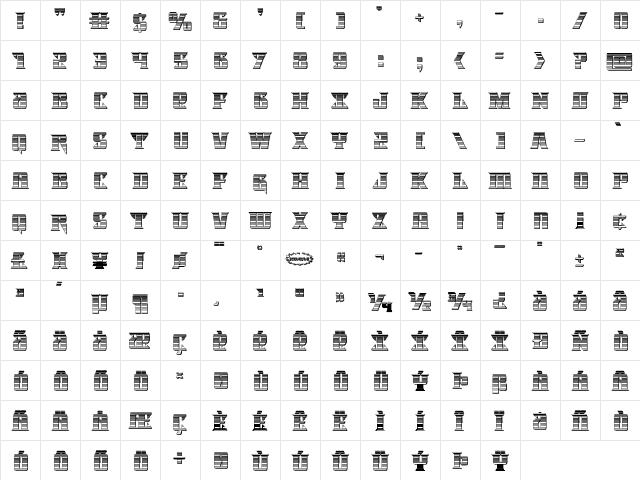
Lifeforce Chrome Regular
Design Context for Lifeforce Chrome Typeface
Lifeforce Chrome has the bold swagger of sports branding: strong, assertive letterforms designed to dominate headlines and jerseys alike.
Built for sports team identities, athletic apparel, event posters, and high-energy promotional material.
Font Pairing: Use alongside a condensed or geometric sans for supporting copy — keep the pairing bold, functional, and free of ornament.
Pro Tip: Lifeforce Chrome thrives on contrast — try it large, bold, and tight against a clean background for maximum visual impact.